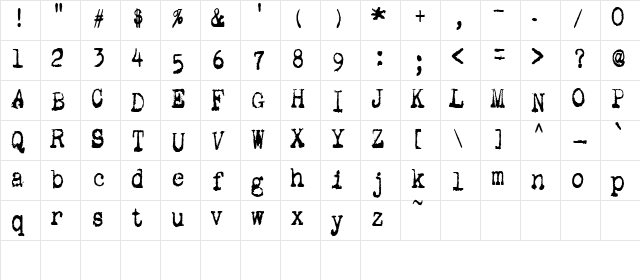
Gutter Vomit Normal
Design Context for Gutter Vomit Typeface
Gutter Vomit is a composed and adaptable typeface that performs quietly and consistently across a wide range of design contexts.
Pro Tip: Use Gutter Vomit in both headline and body roles to test its range before committing to a single application.